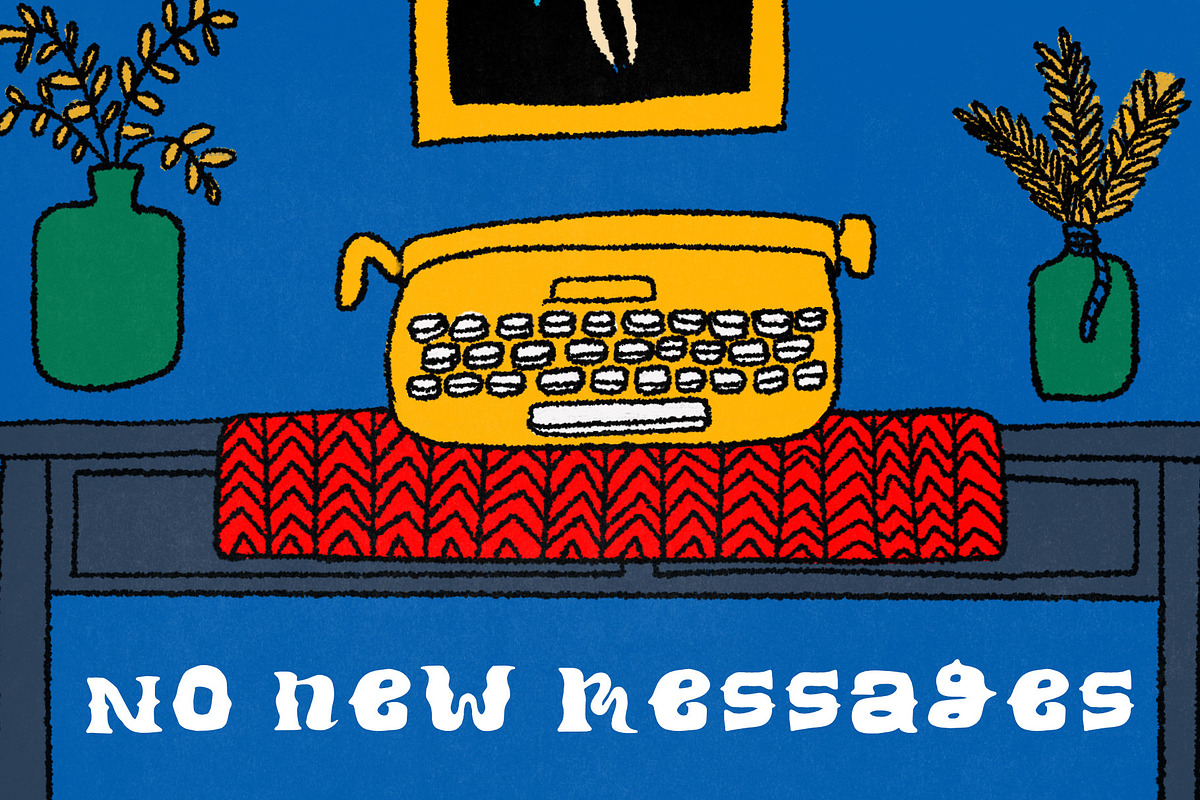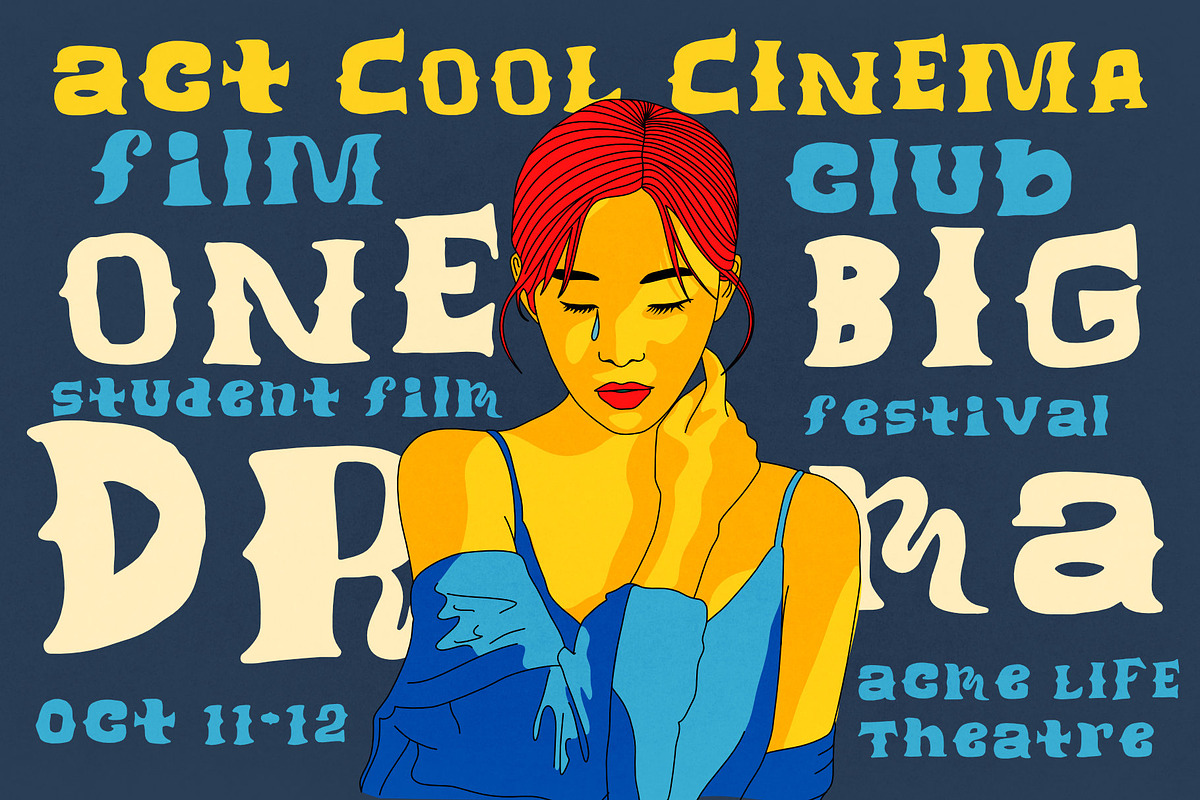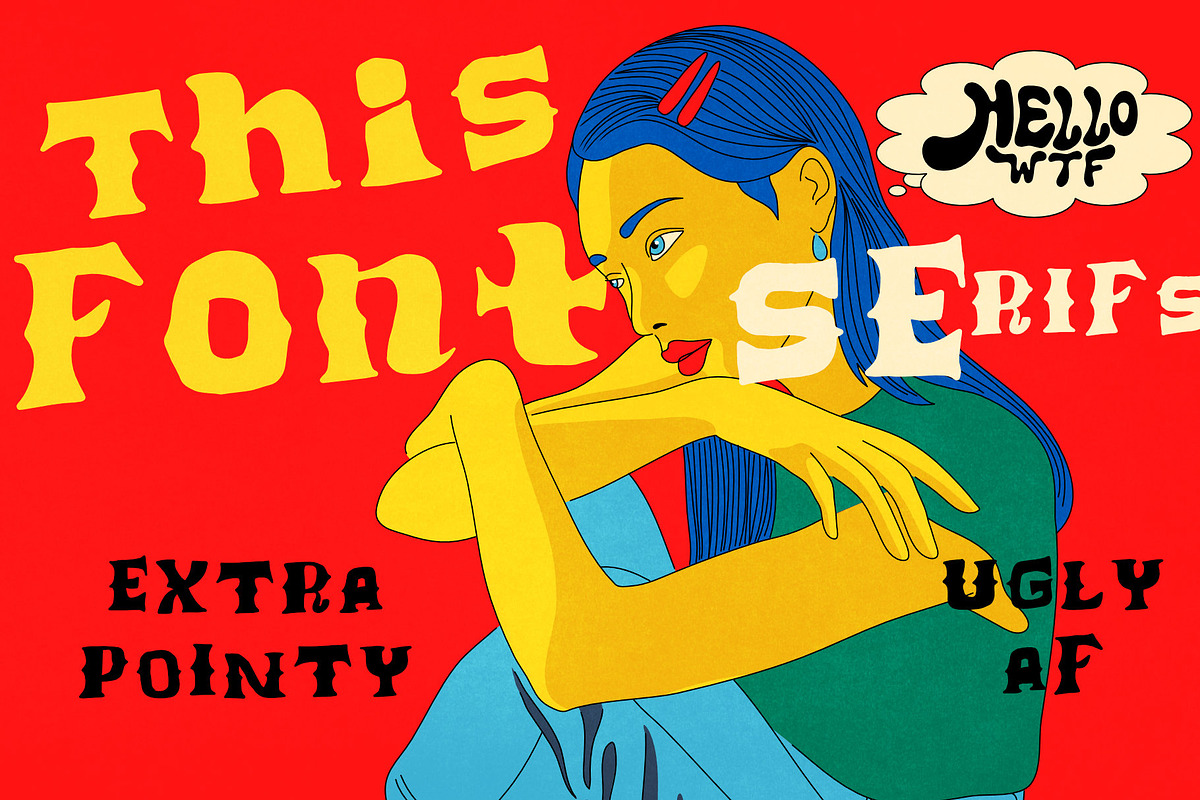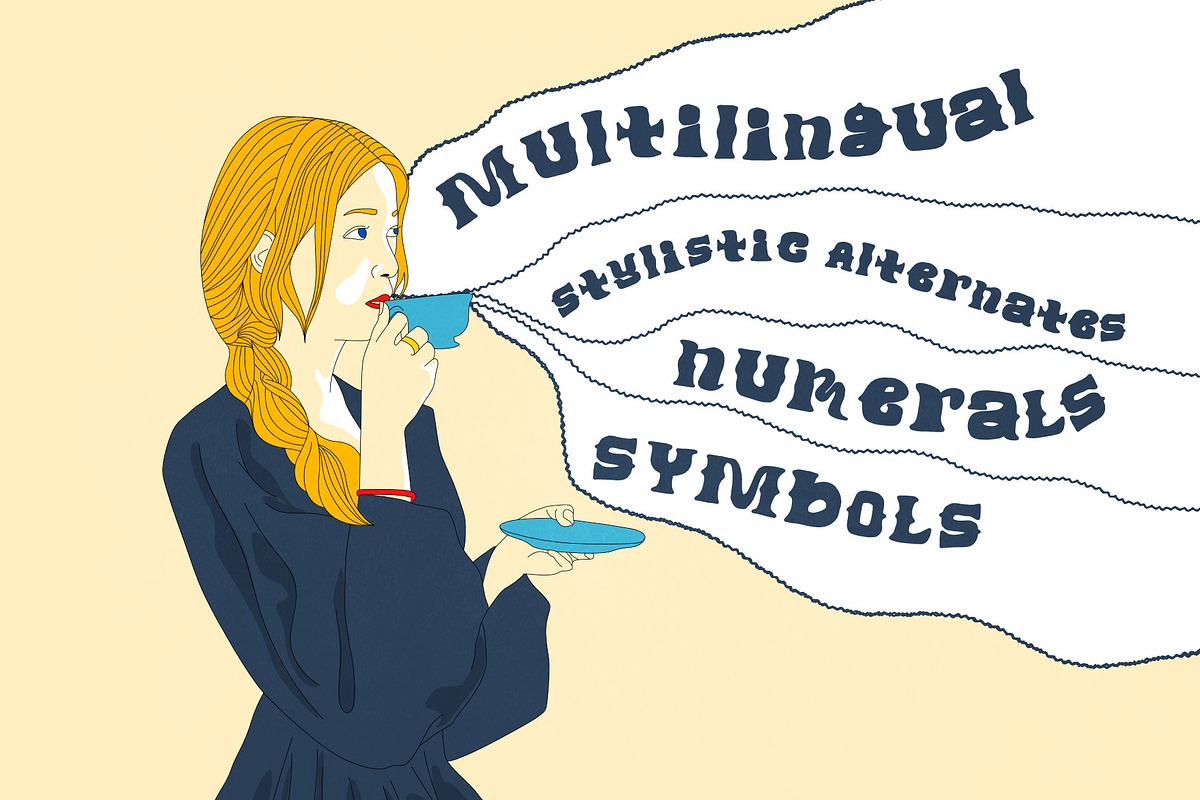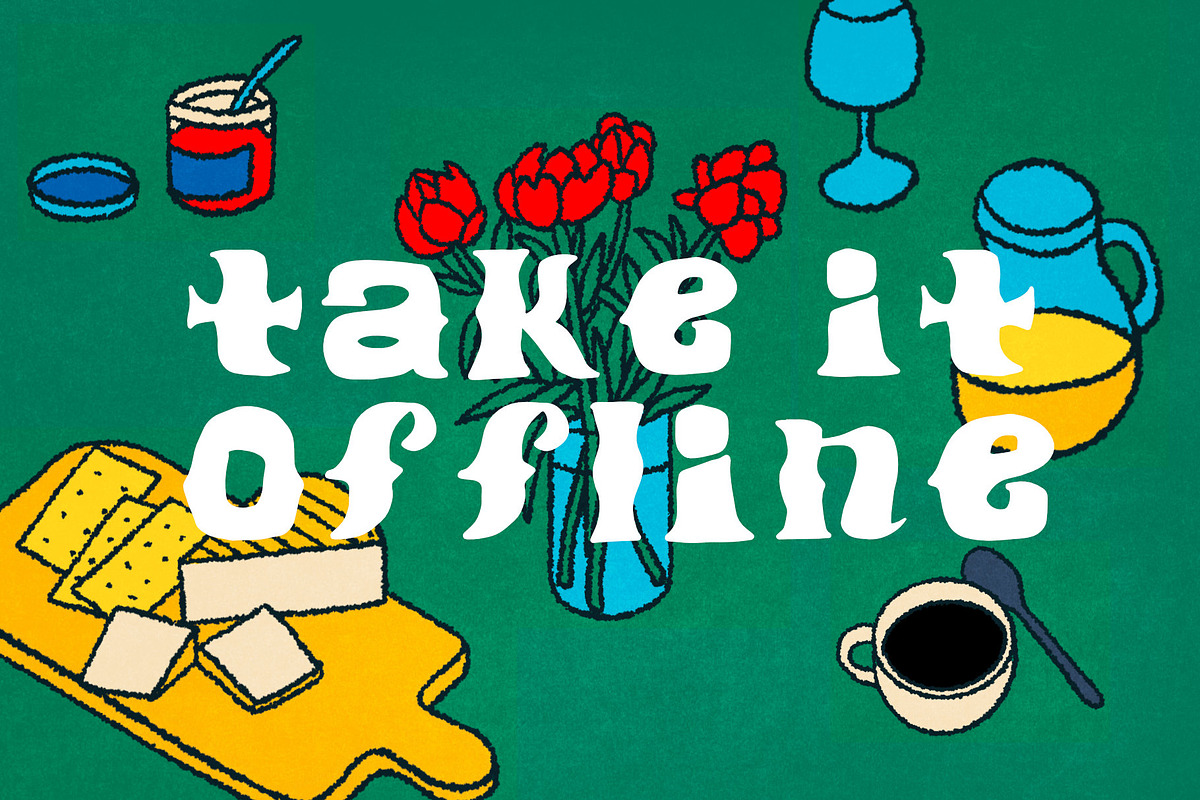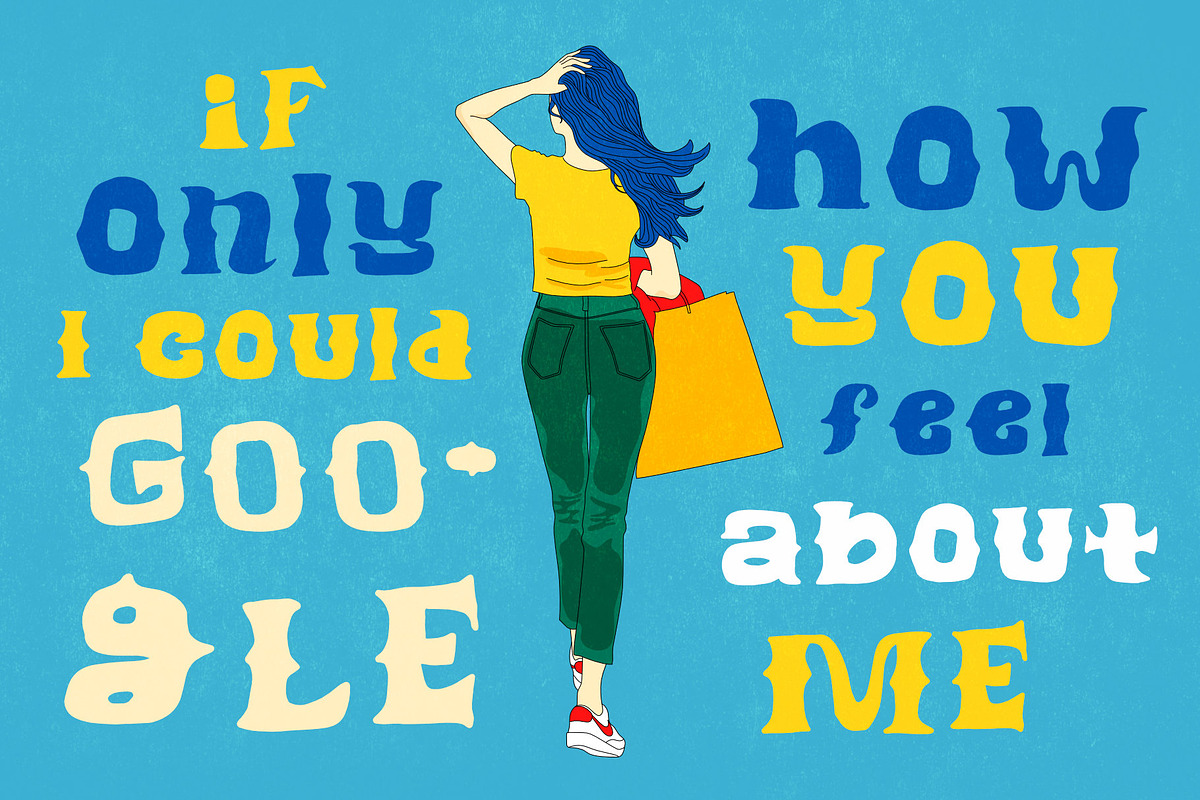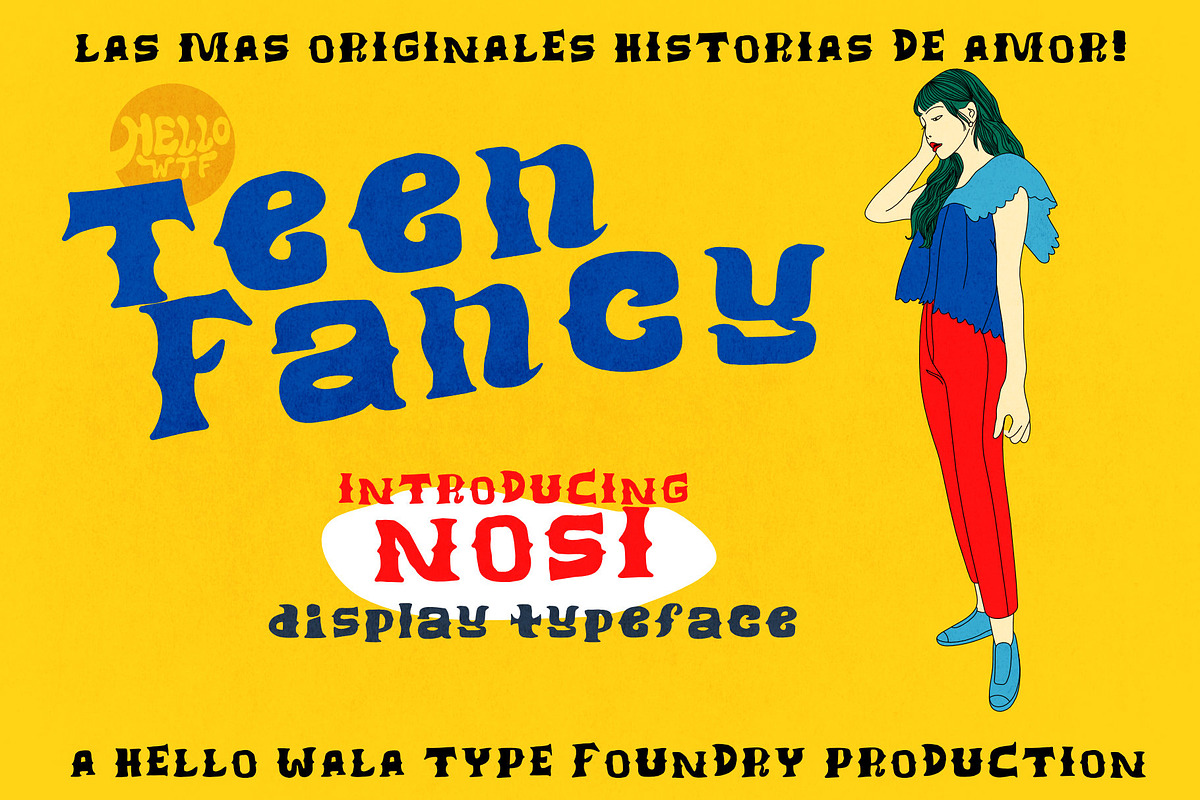
Nosi is a quirky serif display typeface designed for fun titles, children's books or posters that wants to capture the restless spirit of the oddball mind.